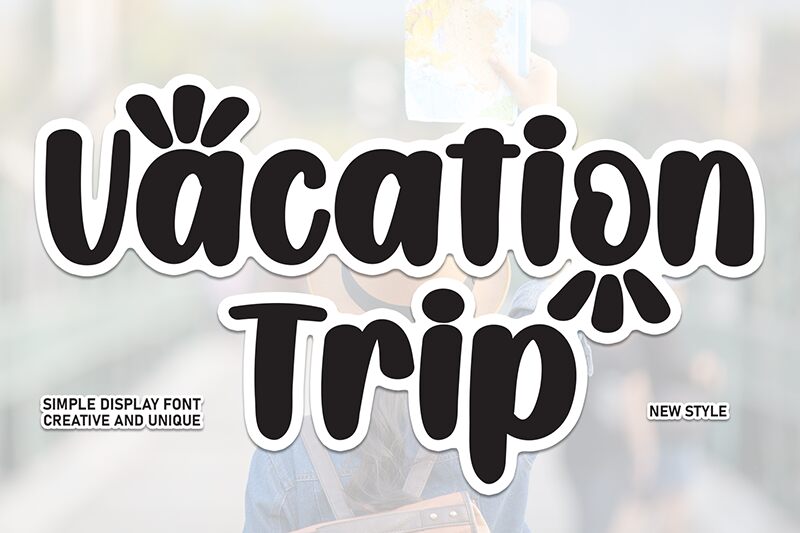
Vacation Trip
Vacation Trip font by Scratchones is a retro-inspired brush typeface with a casual and whimsical design. Its bold yet approachable appearance creates a relaxed mood suited for modern applications in travel branding and leisure products. This free font boasts organic letter strokes that blend smoothly together inside monoline characters.
This handwritten font fits superbly among vibrant travel posters, brochures, postcards, maps, stamps, tickets, social media graphics, book covers for novels or magazines about traveling. It also works well on apparel merchandise packaging such as luggage tags or T-shirt designs.